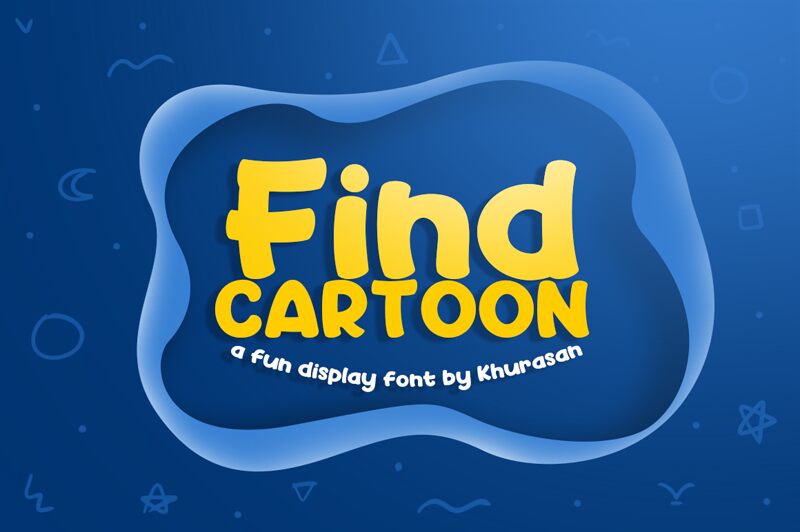
Find Cartoon
Find Cartoon, a bold and semi-expanded display font by Khurasan, is here to inject some whimsy and joy into your projects. With its playful cartoon style, this font is an ideal choice for children's books, animated films, video games, and comic strips. Its fun and vibrant design will instantly capture the attention of young readers and bring characters to life on the page or screen. Say goodbye to dull typography and let Find Cartoon add a touch of excitement to your next creative endeavor.